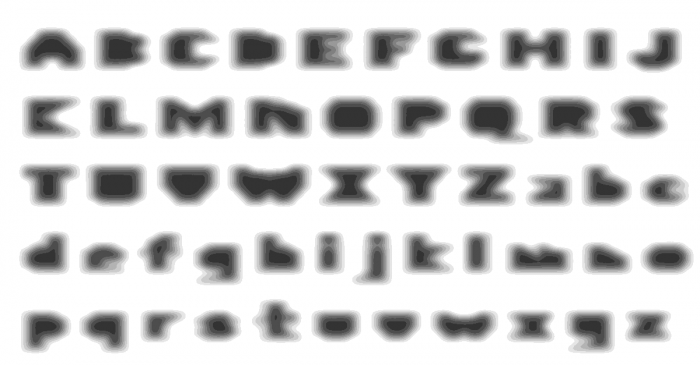
Interesting transition. I really like how you've resolved the slanted "borders" between the darkest inner part and the outer part (both sides of the A, e.g.). Is a font to see at big size. And curious deformed samples too.
those samples i made (after finishing the core set of letters) by playing with filters in Inkscape. but it is almost a year ago and i don't remember anymore which ones i used. :)
Interesting transition. I really like how you've resolved the slanted "borders" between the darkest inner part and the outer part (both sides of the A, e.g.). Is a font to see at big size. And curious deformed samples too.
This looks nice. Looks like I'm looking at 2.5D shapes (It is a mix of 2D and 3D)…
those samples i made (after finishing the core set of letters) by playing with filters in Inkscape. but it is almost a year ago and i don't remember anymore which ones i used. :)
Fascinating, I like the complexity of the diagonals.